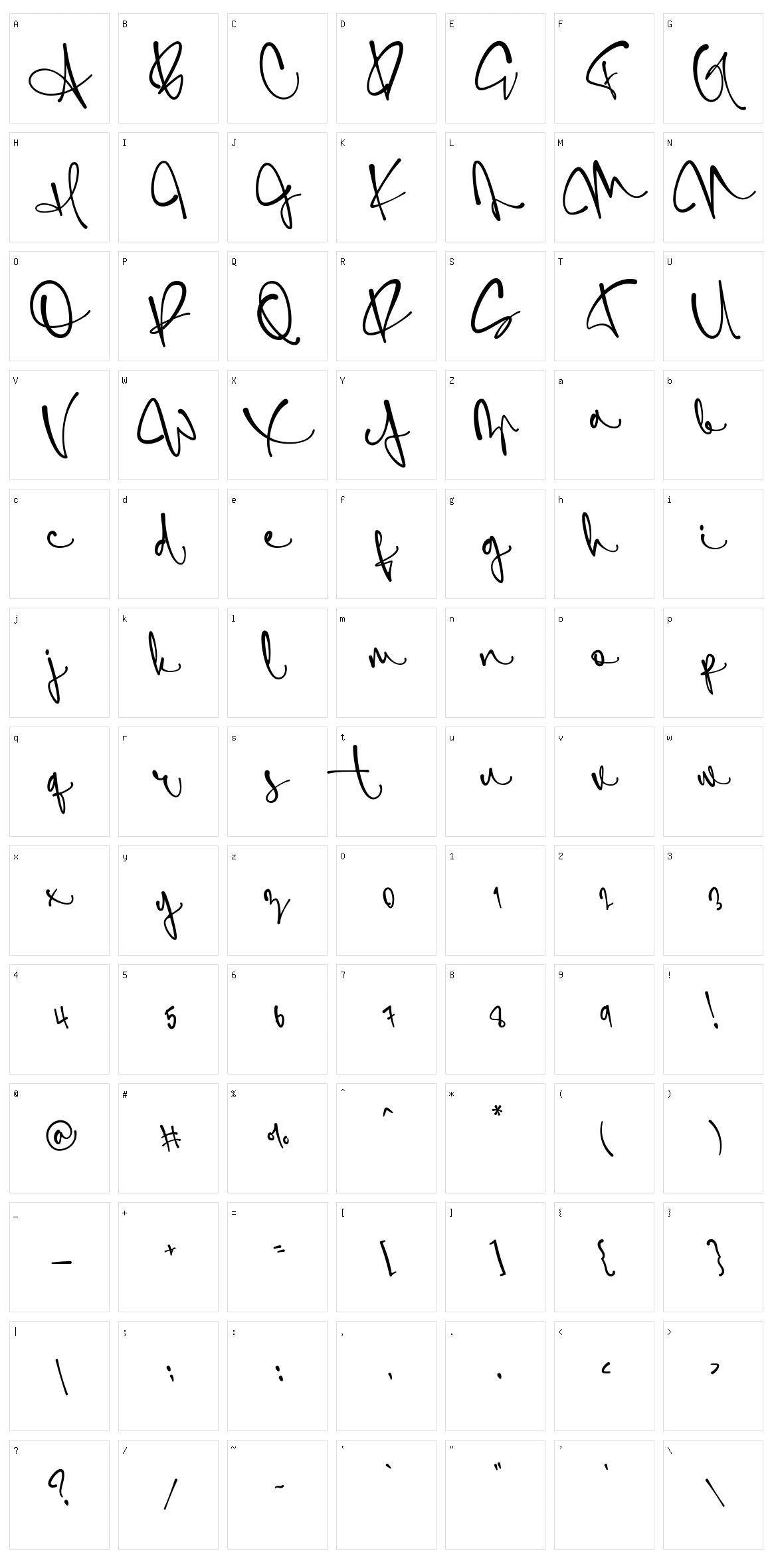
The free font Simfony Sign is carefully designed by Lemonthe, showcasing a thoughtful balance of creativity and usability and falls under the Script font style. When you download the ZIP file, it contains only 68.61 KB of font files, making it lightweight and quick to download. Please review the license details below to understand permitted usage and distribution rights. If license information is not available, we recommend using this font for personal projects only or contacting the author directly for commercial usage permissions.